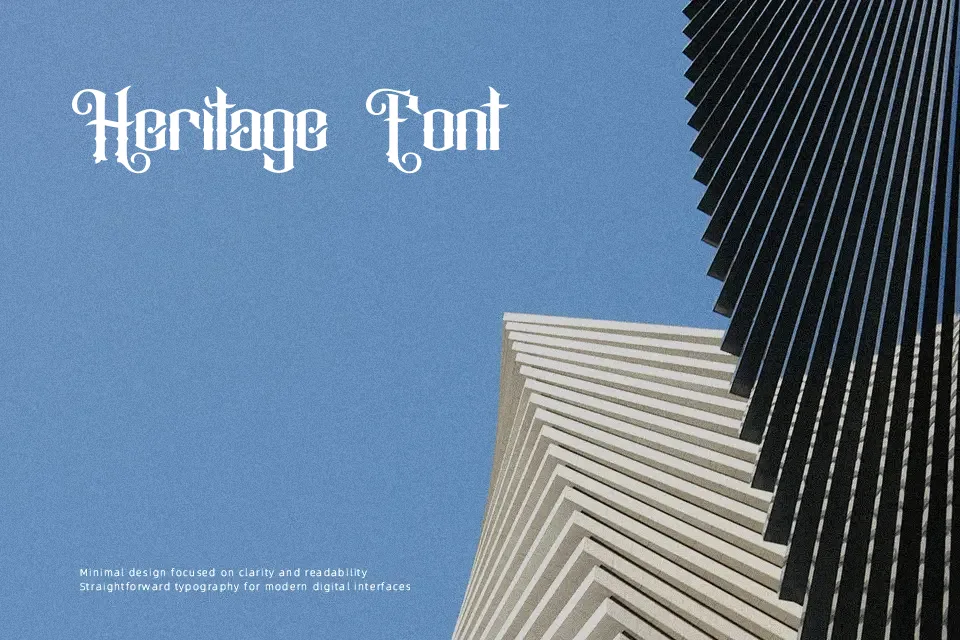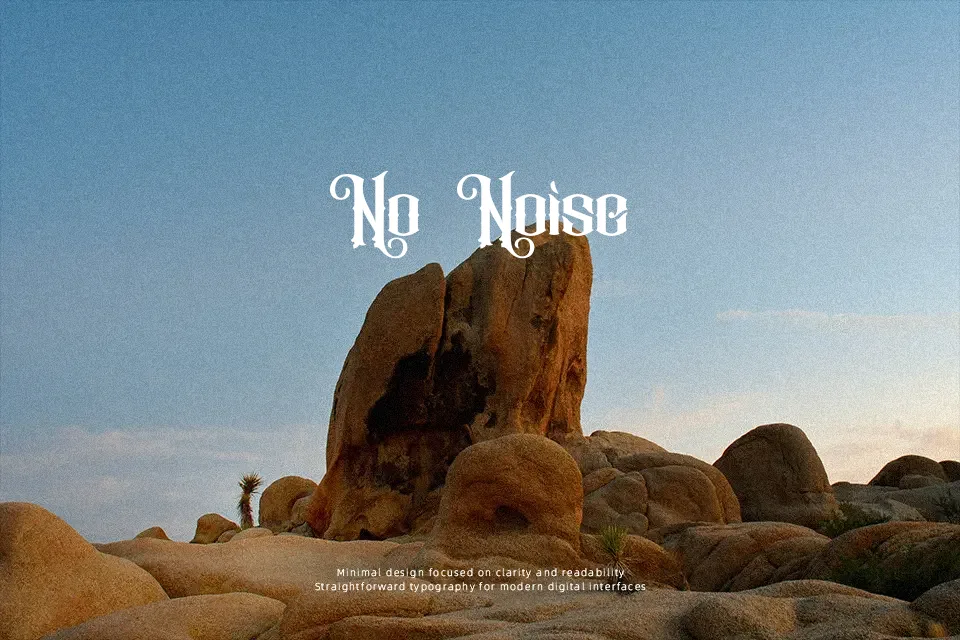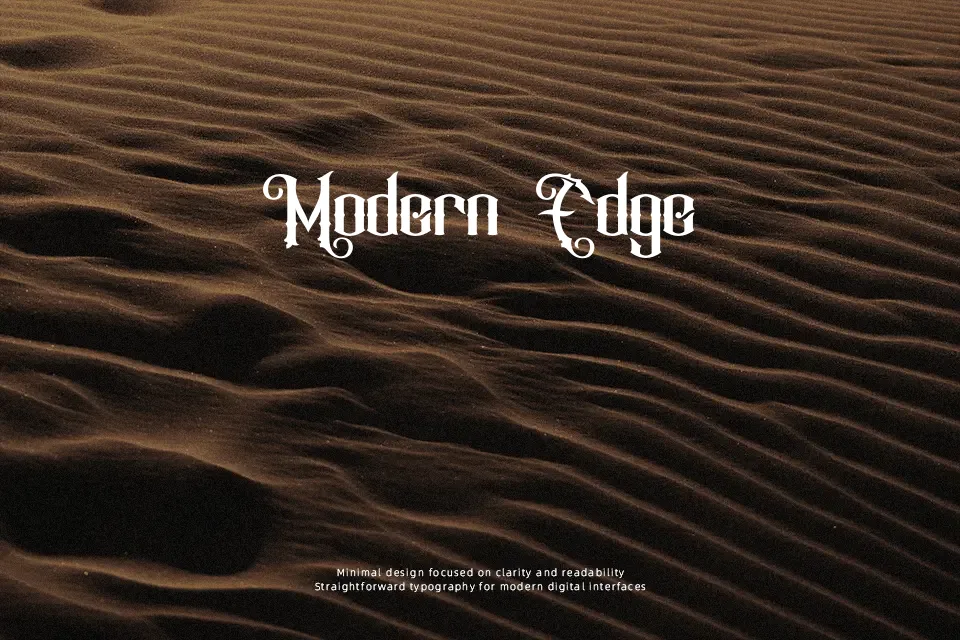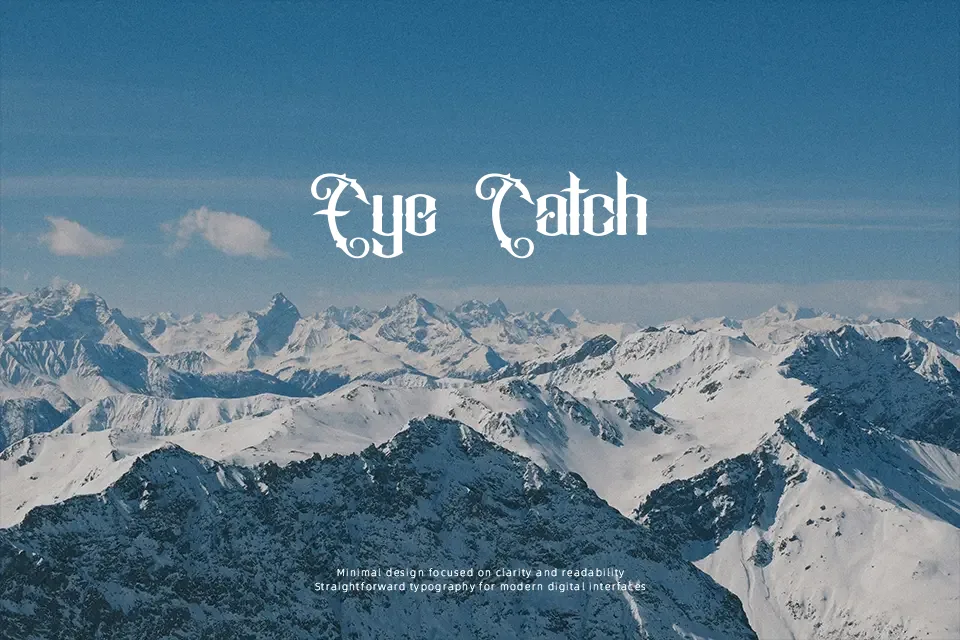
BTX-Renegade Font
Designed by Betwixt Designs
BTX-Renegade by Betwixt Designs is a highly decorative display typeface characterized by sharp, elaborate strokes and a pronounced gothic structure. Drawing inspiration from medieval ornamentation, its letterforms feature intricate details and an eclectic weight that immediately commands attention. The overall impression is dark, theatrical, and steeped in fantasy. This typeface excels when applied to large-scale formats like alternative music album covers, medieval-themed gaming interfaces, or dramatic event posters where a strong visual anchor is needed. Conversely, its ornate complexity makes it entirely unsuitable for long-form body text or minimalist corporate branding, as the dense flourishes severely reduce readability at smaller sizes. Compared to traditional blackletter, it leans further into an experimental, retro-fantasy aesthetic.
Large-scale event posters with a dramatic or historical theme
Alternative music album covers
Fantasy and medieval-themed gaming interfaces
Eye-catching tattoo lettering and apparel graphics
Small-sized body text or editorial paragraphs
Clean, minimalist corporate identities
User interface menus requiring immediate legibility
Perfect for gaming, headline, and music, with a ancient and blackletter style.